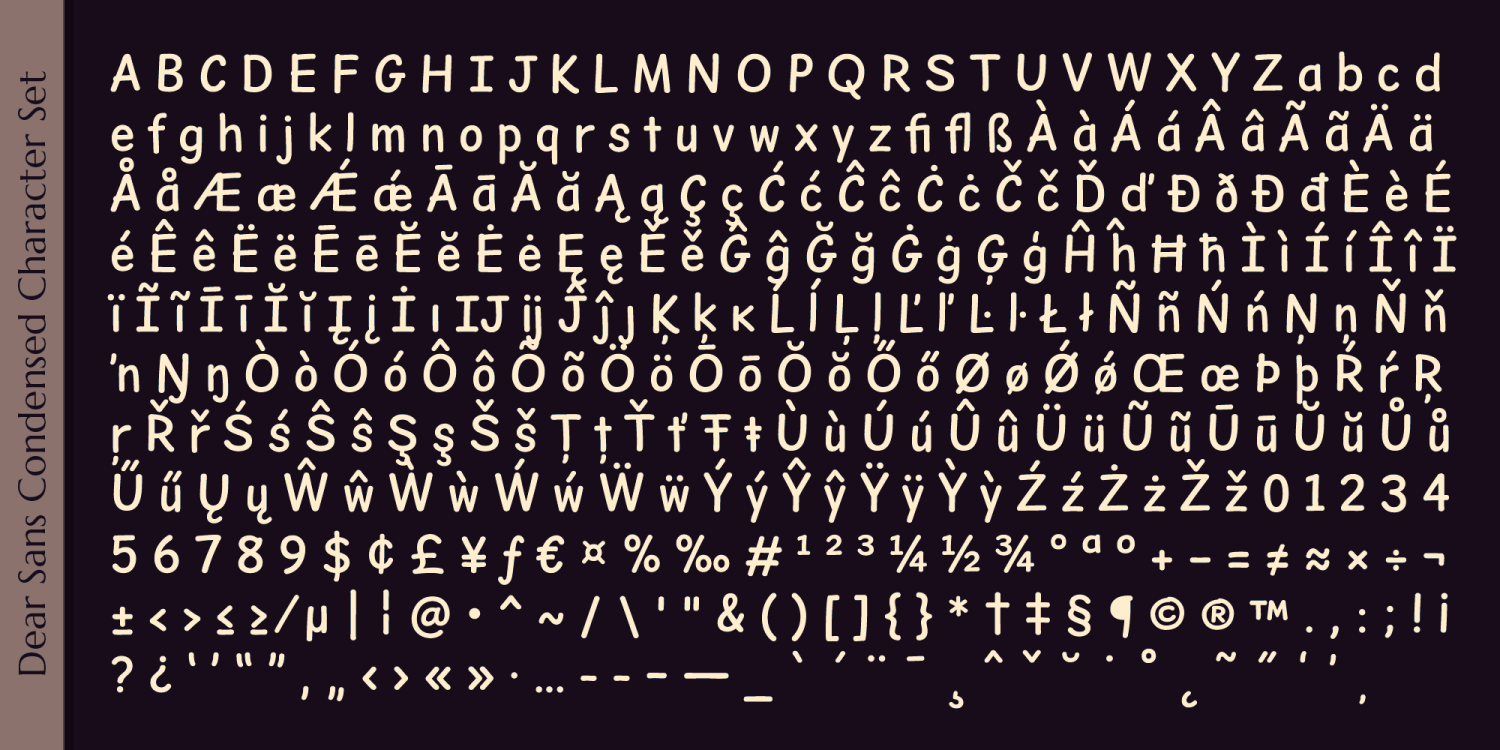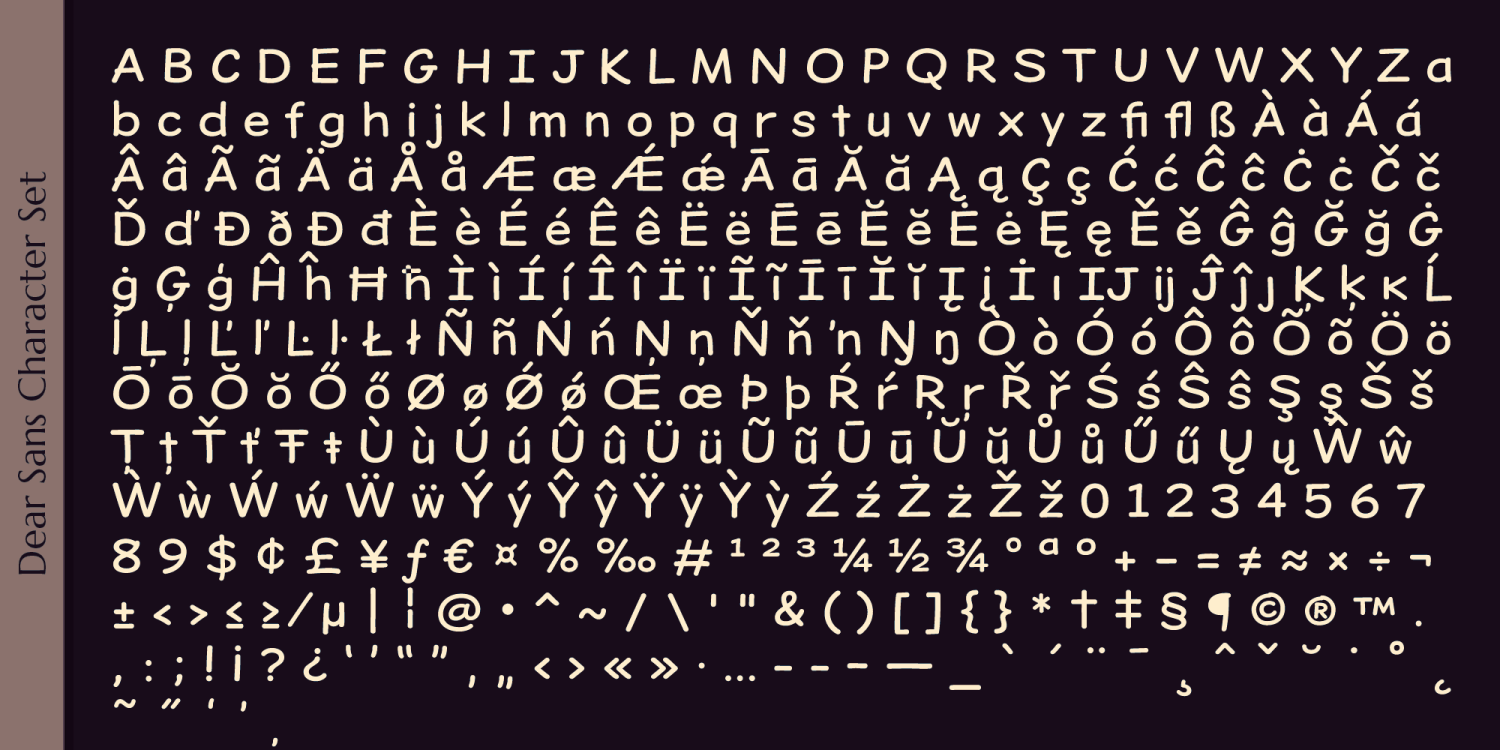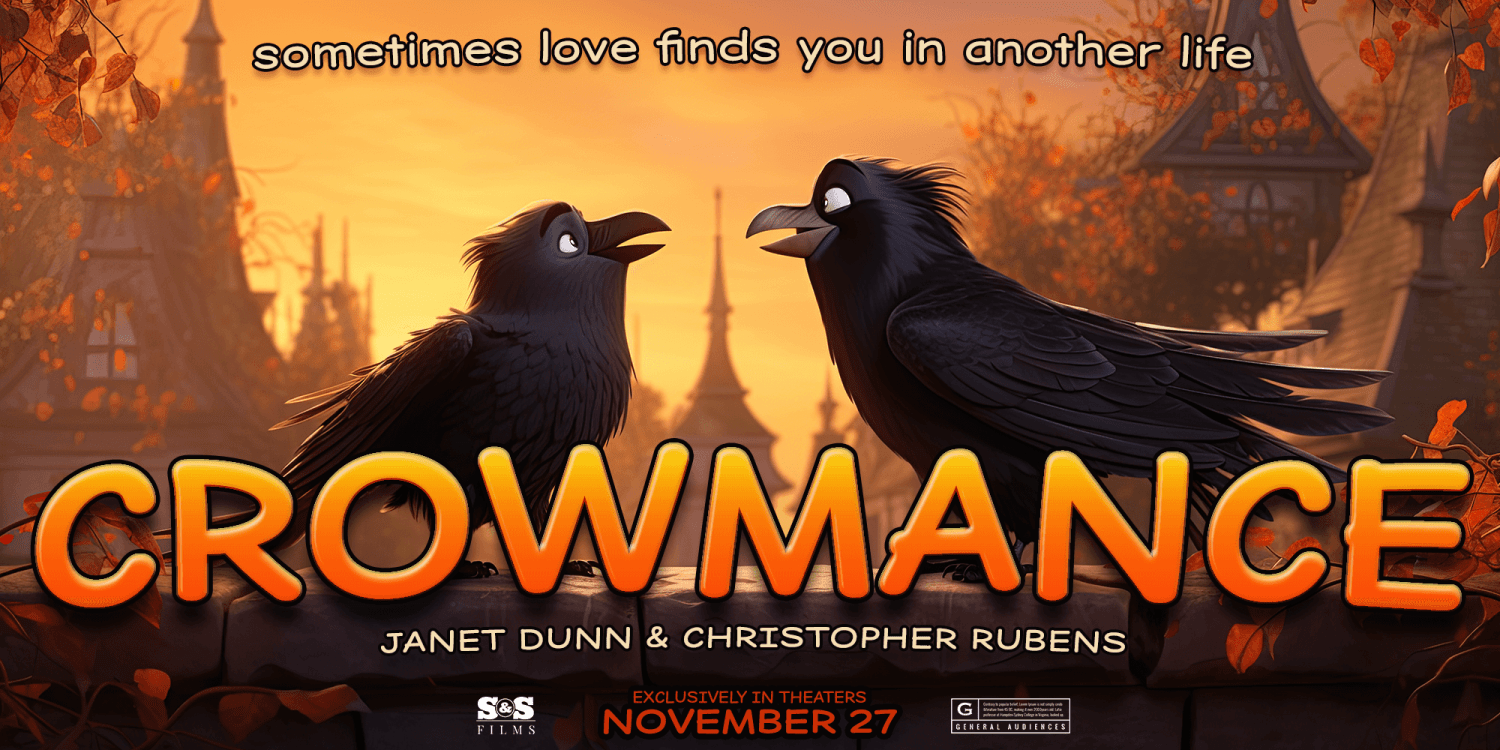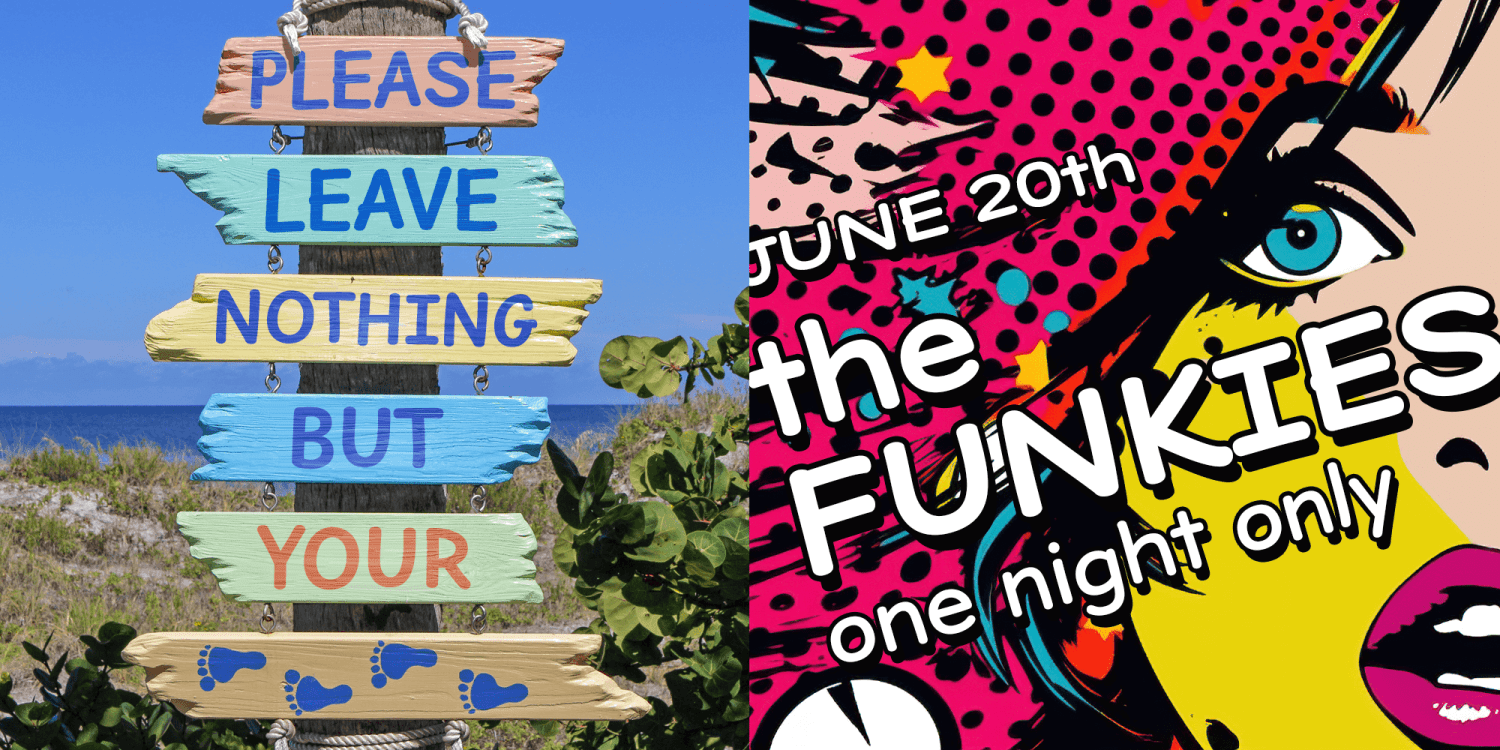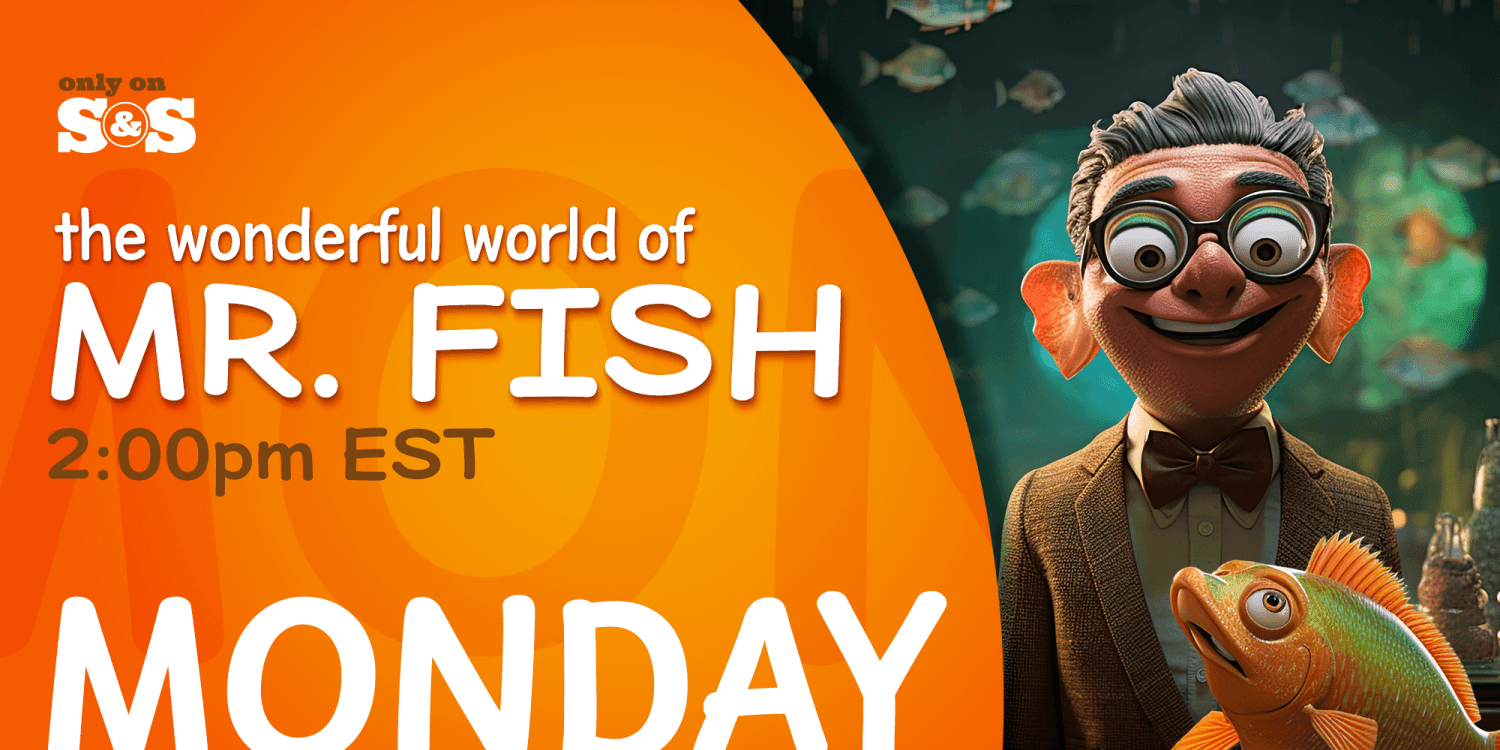
About Dear Sans
The Dear Sans Family is a three font family of condensed weights: Book, Regular & Bold. This is the "Standard Width" family that spawned it all. Cleanly readable, with just a slight hint of silliness, Dear Sans brings adds the perfect level…